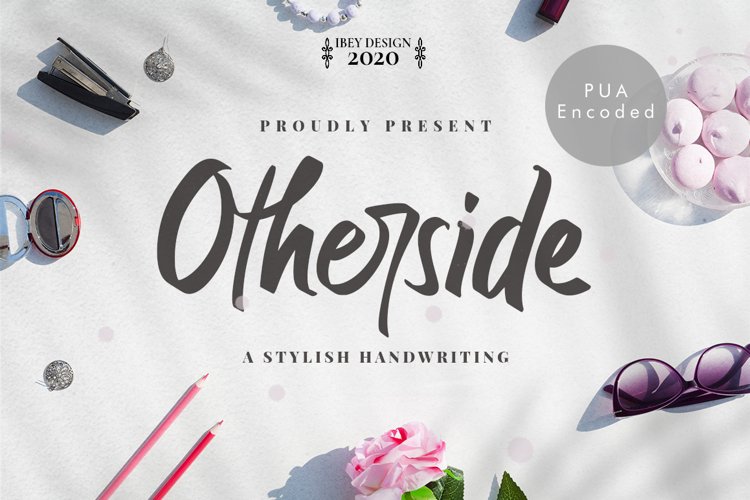
Otherside - Handwritten Script Font
Otherside
Otherside Handwritten Script Font is a beautiful and stylish handwritten font. It looks stunning on a variety of designs that need a personalized touch.
Otherside Handwritten Script Font is PUA encoded which means you can access all of the glyphs and swashes with ease!